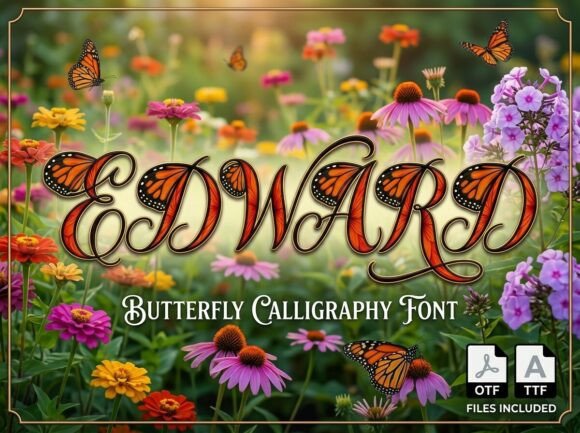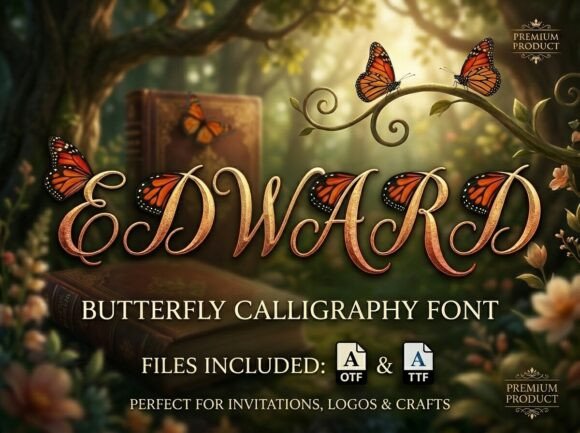
Introducing Edward Font: The Ultimate Decorative Display Font
Are you tired of using the same old fonts in your designs? Look no further than Edward Font, a stunning decorative display font that’s sure to turn heads. With its unique artistic elements and strong visual personality, this font is perfect for creators who want to break away from the ordinary and make a statement.
Edward Font is designed to be the center of attention, featuring intricate details and creative letterforms that are sure to grab the viewer’s eye. Whether you’re designing a modern poster, a unique brand identity, or eye-catching social media content, this font adds an instant “wow” factor to any project. With its bold and artistic style, it’s perfect for high-impact designs where the typography needs to do the talking.
One of the best things about Edward Font is its versatility. It’s perfect for a wide range of design applications, from bold headlines and artistic logos to creative packaging and more. Whether you’re a graphic designer, a crafty DIY enthusiast, or a social media influencer, this font is sure to elevate your designs to the next level.
Perfect for:
- Poster Design: Create headlines that people can’t look away from. With Edward Font, you can create eye-catching posters that demand attention and leave a lasting impression.
- Branding & Logos: Build a unique identity for creative businesses. This font is perfect for creating distinctive logos and brand identities that set you apart from the competition.
- Apparel & Merch: Perfect for T-shirts, hoodies, and tote bag designs. Add a touch of personality to your apparel and merchandise with this bold and artistic font.
- Social Media Content: Stand out on social media with eye-catching graphics and bold headlines. Edward Font is perfect for creating engaging social media content that gets noticed.
Why Choose Edward Font?
So why choose Edward Font over other decorative display fonts? Here are just a few reasons:
- Unique Artistic Elements: This font features unique artistic elements that set it apart from other fonts. Its creative letterforms and intricate details make it perfect for high-impact designs.
- Strong Visual Personality: Edward Font has a strong visual personality that demands attention. It’s perfect for creators who want to make a statement and leave a lasting impression.
- Professional and Polished Finish: Despite its bold and artistic style, Edward Font maintains a professional and polished finish. It’s perfect for designs where you want to make a statement without looking unprofessional.
Tips for Using Edward Font
Here are a few tips for getting the most out of Edward Font:
- Use it Sparingly: Because of its bold and artistic style, it’s best to use Edward Font sparingly. Use it for headlines and key design elements, and pair it with a simpler font for body text.
- Experiment with Colors: Edward Font looks great in a wide range of colors, from bold and bright to more muted and subtle. Experiment with different colors to find the perfect look for your design.
- Pay Attention to Kerning: As with any font, pay attention to kerning when using Edward Font. Make sure the letters are evenly spaced and visually appealing.
Edward Font is a stunning decorative display font that’s perfect for creators who want to break away from the ordinary and make a statement. With its unique artistic elements, strong visual personality, and versatility, it’s perfect for a wide range of design applications. Whether you’re designing a modern poster, a unique brand identity, or eye-catching social media content, Edward Font is sure to elevate your designs to the next level.